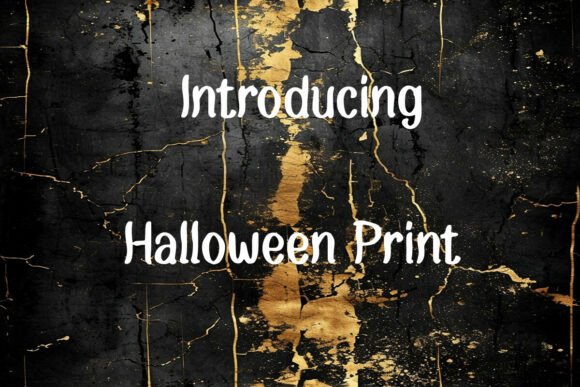
Introduction to Halloween Print Font Font
Fonts play a crucial role in design, and the Halloween Print Font font is a typeface that brings both character and versatility to any project. Whether you’re working on a branding project, a website, or a print design, the Halloween Print Font font offers a unique style that can elevate your work.
Enter a world of spooky charm with Halloween Print, the perfect choice for making a striking statement.
This versatile typeface can set your shirts, stickers, and branding elements apart while adding an enigmatic vibe to your magazines and SVG files Whether youβre crafting endearing greeting cards or inventive Cricut projects, the Halloween Print font ensures your message captures the spirit of the mystical and the macabre.
Key Features of Halloween Print Font Font
Why Choose Halloween Print Font Font?
The Halloween Print Font font is more than just a typeface β it’s a design tool that helps you communicate your message with style and clarity. Its unique character set and versatile design make it suitable for a wide range of applications, from elegant invitations to bold headlines.
With its carefully crafted letterforms and balanced proportions, the Halloween Print Font font ensures readability and visual appeal across all mediums.
What makes Halloween Print Font font special?
The Halloween Print Font font stands out with its unique design, exceptional readability, and versatility across various design applications.